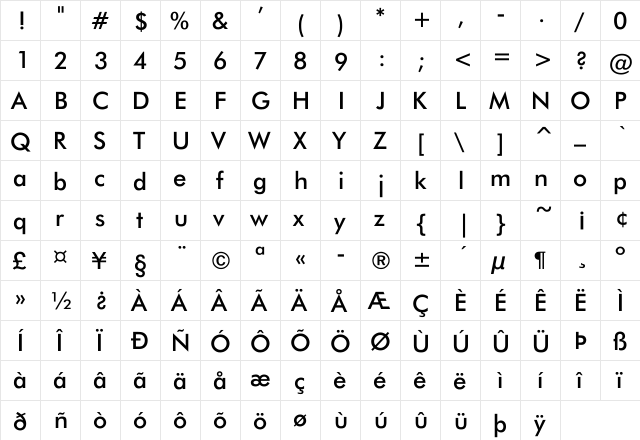
Jensen Regular
Design Context for Jensen Typeface
Jensen offers clean, dependable letterforms without strong stylistic allegiance, making it a practical choice for designers who need flexibility.
Pro Tip: Use Jensen in both headline and body roles to test its range before committing to a single application.